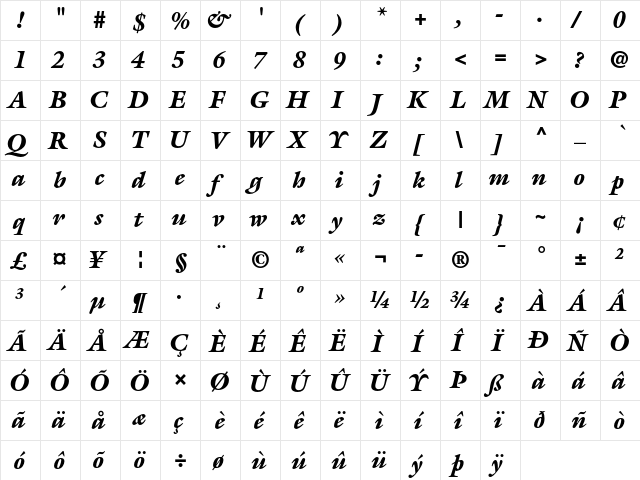
ITC Galliard Black Italic Font Preview
ITC Galliard Black Italic
Design Context for ITC Galliard Typeface
ITC Galliard offers clean, dependable letterforms without strong stylistic allegiance, making it a practical choice for designers who need flexibility. The dynamic lean of this cut emphasises speed and emphasis in any layout.